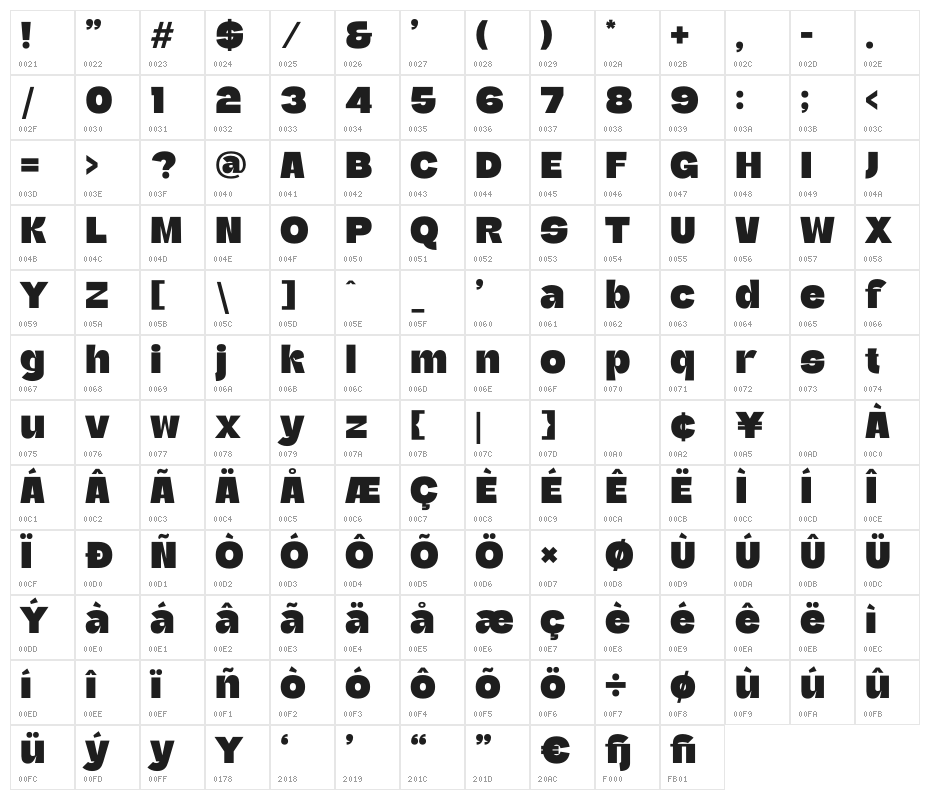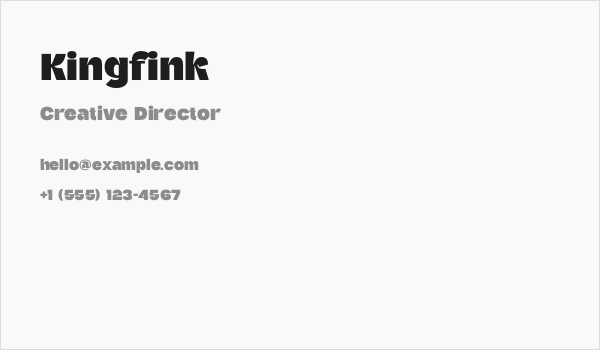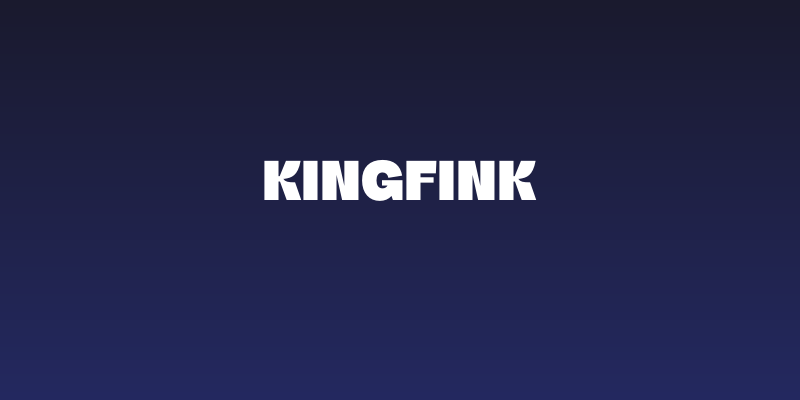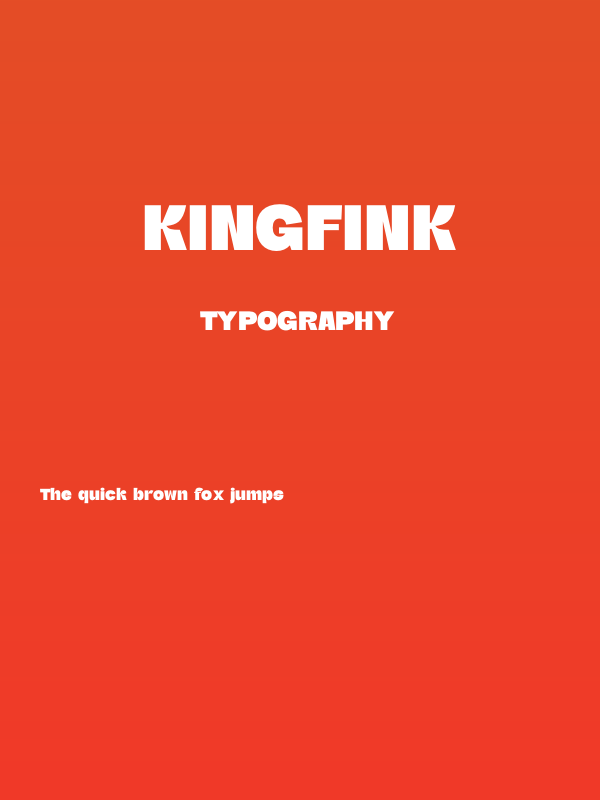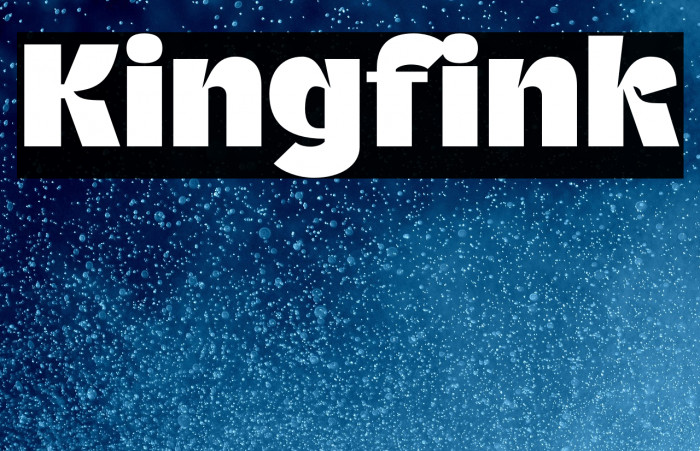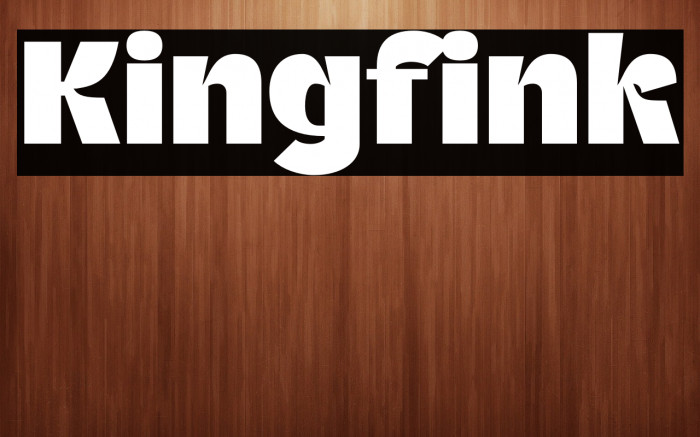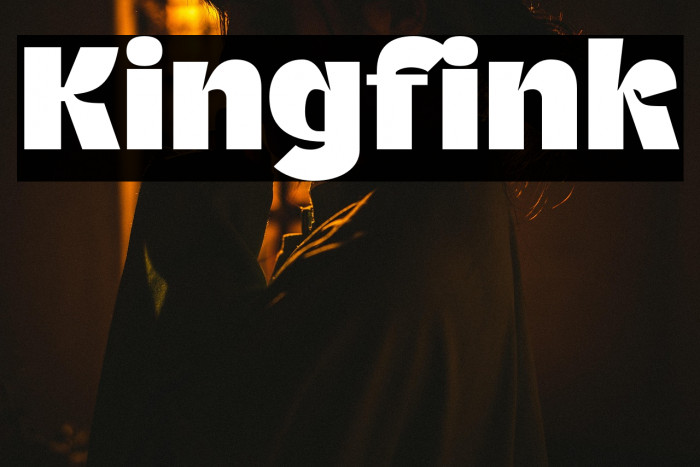
Kingfink Font
Kingfink Description
This bold and impactful font features thick, blocky characters with a strong presence. The uppercase letters are particularly striking, with a uniform height and width that create a sense of stability and strength. The lowercase letters maintain this boldness while offering a slightly more rounded appearance, adding a touch of approachability. The numbers are equally robust, ensuring they stand out in any context. Special characters are designed with the same boldness, ensuring consistency across all elements. The font's overall style is modern and assertive, making it ideal for attention-grabbing headlines or branding that requires a strong visual impact.